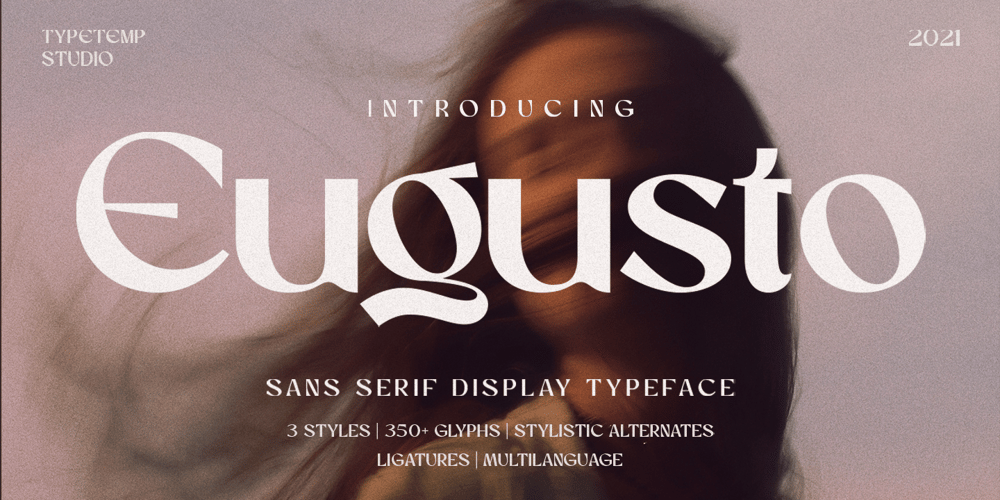
Eugusto Font Family was designed by Egi Ahmad Mufid and published by Typetemp Studio. Eugusto contains 3 styles and family package options. Eugusto – Sans Serif Display is a stylish font It has modern look. Comes with alternatives and ligatures, helps to create stunning logos, quotes, posts, blog posts. branding projects, magazine imagery, wedding invitations, and much more. Unique Letterforms Works on PC & Mac Simple Installations Accessible in the Adobe Illustrator, Adobe Photoshop, Microsoft Word even work on Canva! Fully accessible without additional design software. I really hope you’ll get pleasure using Eugusto font and it will be perfect addition to your font collection! Contact me with an inbox message If you have any question. Thank you! Happy Creating.